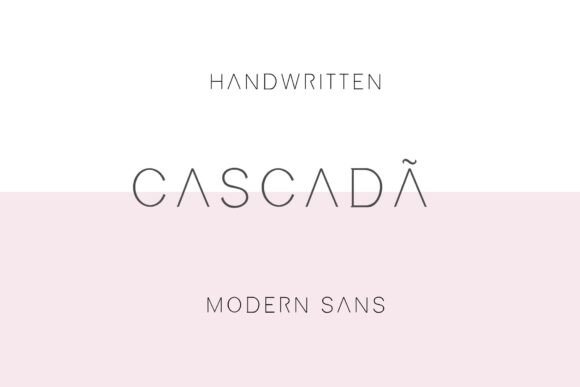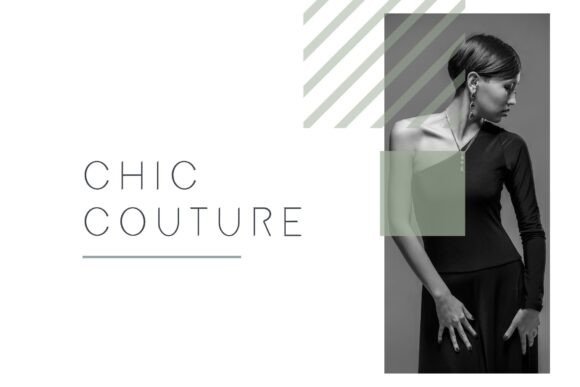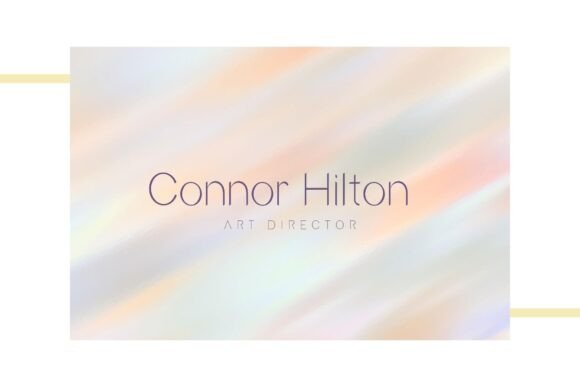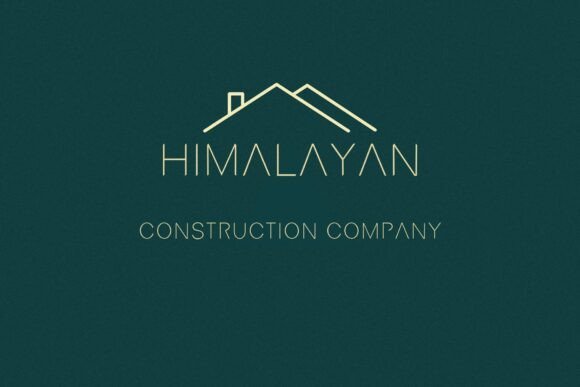
Cascada Font: Modern Handwritten Sans Serif for Chic Branding & Logos
About the Cascada Font
Unleash your creativity with Cascada Font, a versatile font perfect for a wide range of applications. Cascada is a modern Handwritten sans serif font.
This font is perfect for advertising, headings, blogs, logos, branding and more!
This font would pair well with a script style & also it’s speak loud it’s own.
Whether you’re a graphic designer, web developer, or a DIY enthusiast, this font will elevate your projects with a contemporary touch.
Cascada Font Usage Examples
Cascada Font Example